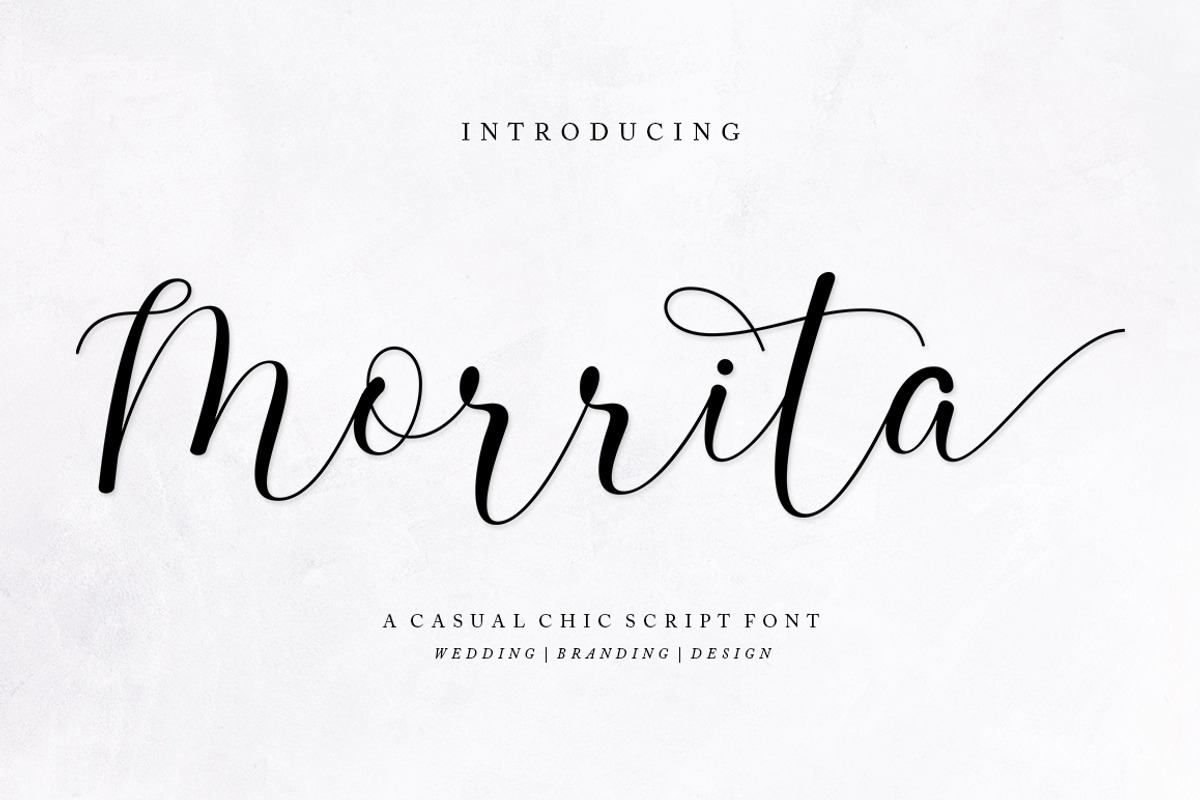
Morrita Font is a script typeface that retains a classy calligraphic influence while feeling contemporary and fresh. Its design features a tall x-height and wide proportions, making it suitable for both display and text use. This font is ideal for projects that require an elegant and modern script, such as invitations, branding, and editorial designs. You can download Morrita Font Free Download for personal use to explore its features. For commercial applications, please ensure you purchase the appropriate license to comply with usage rights.